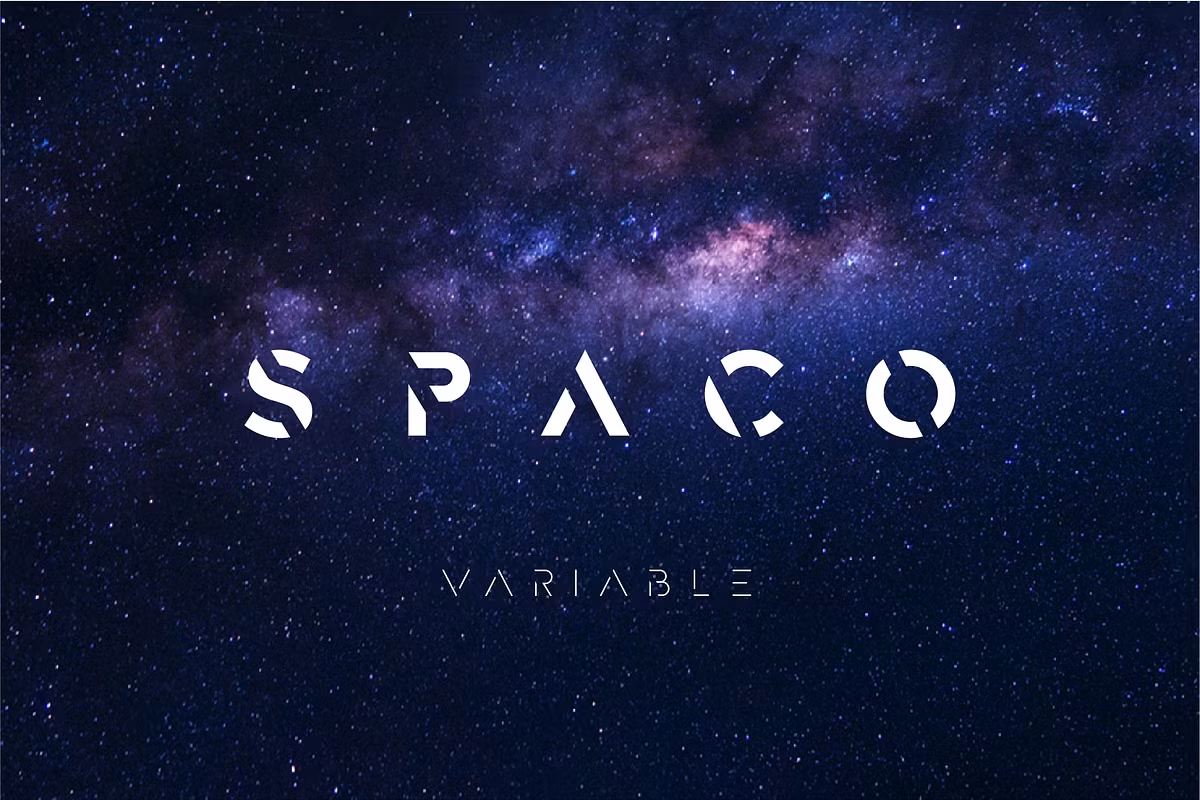
Give your designs a strong, industrial vibe with Spaco Stencil SC Font Free Download. This bold stencil-style typeface is perfect for creating impactful designs, including military-inspired branding, posters, logos, product packaging, and other projects that need a rugged, attention-grabbing look.
Spaco Stencil SC features sharp, clean lines with unique cut-out details, creating a modern and strong aesthetic. It includes uppercase letters, numerals, punctuation, and special characters, making it ideal for testing bold, high-contrast layouts in both print and digital designs.